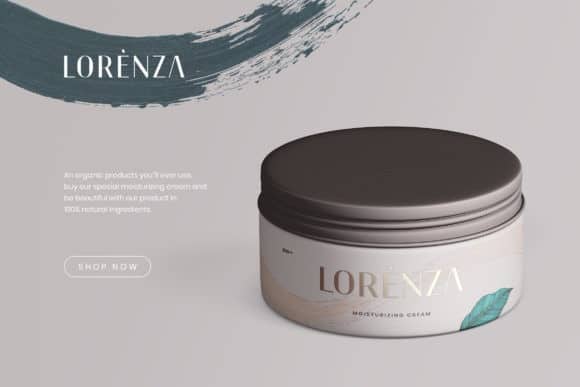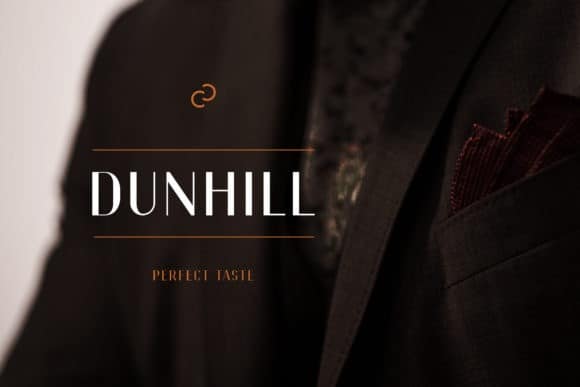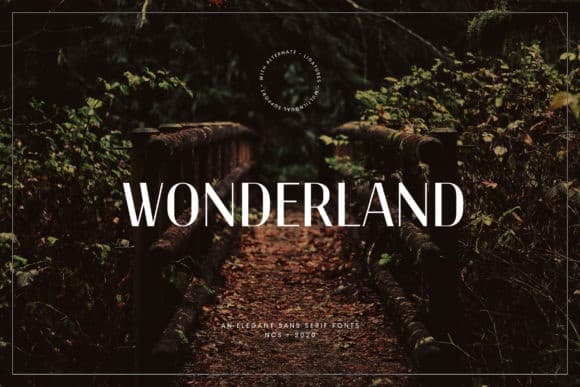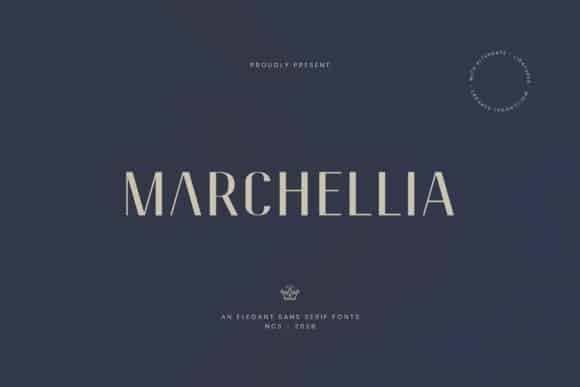
Marchellia Sans Serif Font
Marchellia Sans Serif Font is a very versatile font that works great in large and small sizes. This typeface is a minimal and authentic sans serif font. It can easily be matched to an incredibly large set of projects, so add it to your creative ideas and notice how it makes them stand out!
Marchellia Sans Serif Font is perfect for branding projects, home-ware designs, product packaging, magazine headers – or simply as a stylish text overlay to any background image.